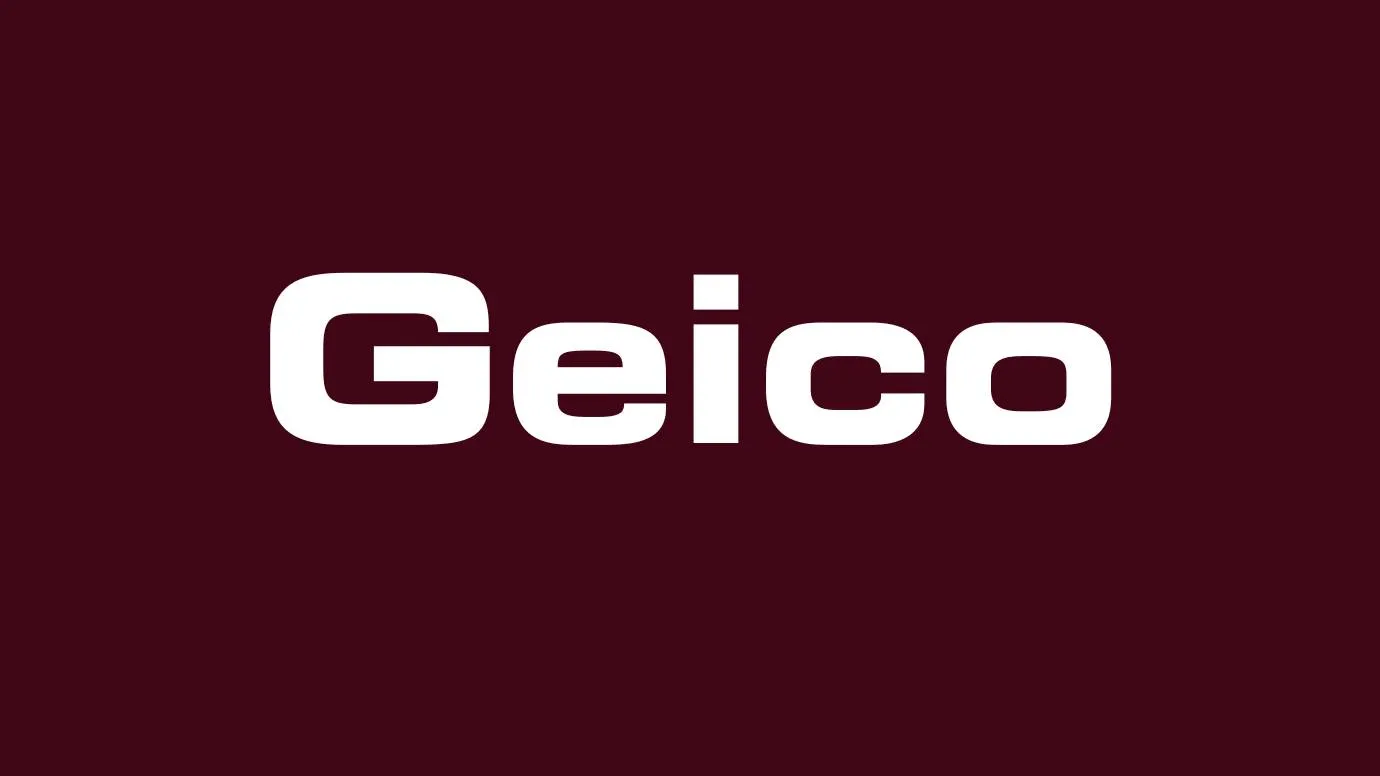
Geico Font Family falls in the category of sans serif family of fonts. Aldo Novarese is the original creator of this typography. This outstanding texture has bold and curved corners that’s why it is suitable for bold title purposes.
Many designers pick this font for different brand titling purposes. Almost, 200 classic glyphs of this typeface make it more attractive. This gorgeous font has an accessible online generator tool facility that converts any simple text into stylish and bold graphics.
Geico Font